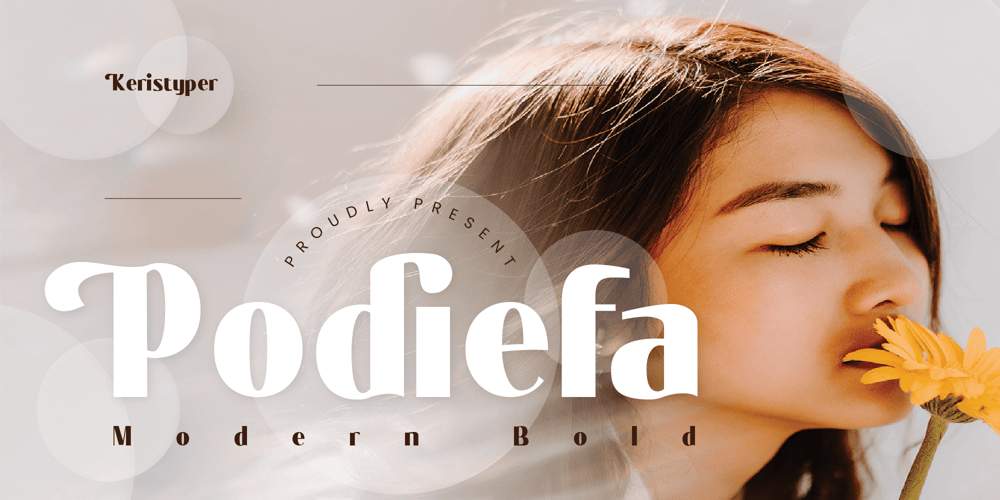
Podiefa Font Family was designed by Tezar Tantular and published by Keristyper Studio. Podiefa contains 1 styles and family package options. Podiefa is a sans-serif display font with visual elegance and smooth curves. This font is good for logo design, Social media, Movie Titles, Books Titles, short text even long text letters, and good for your secondary text font with sans or serif.**Featured:*** Standard Uppercase & Lowercase* Numeral & Punctuation* Multilingual : ä ö ü Ä Ö Ü ß ¿ ¡* Alternate & Ligature* PUA encodedWe recommend programs that support the OpenType feature and the Glyphs panel such as Adobe applications or Corel Draw. so you can use all the variations of the glyphs.Hope you enjoy our fonts!